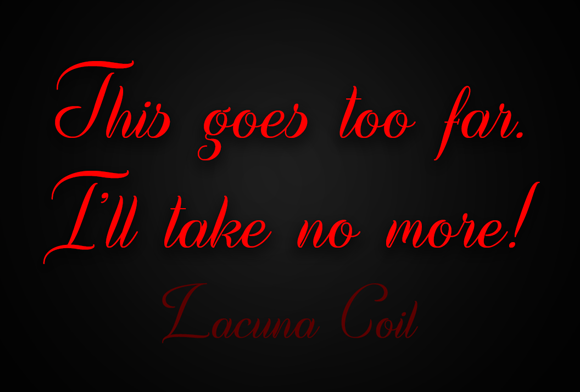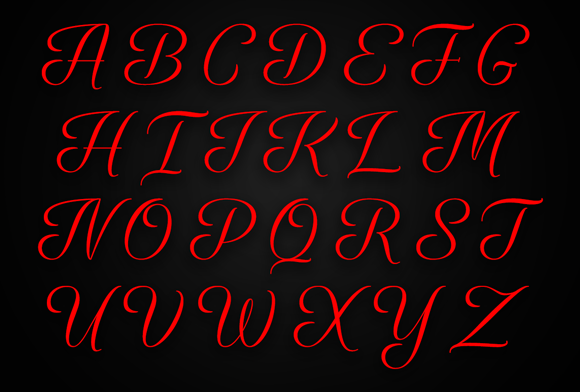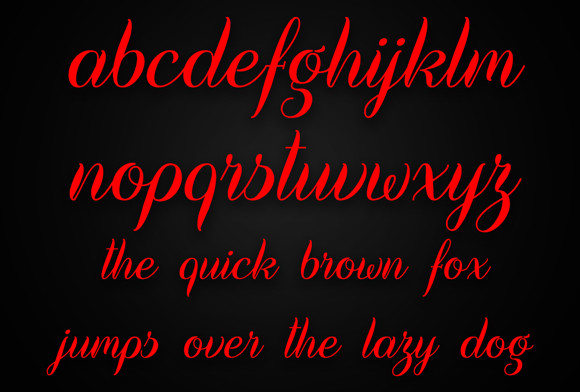
Introduction to Self-Deception Font
Self-Deception is an elegant calligraphy typeface that is perfect for wedding invitations, logos, product labels and so much more.
Self-Deception is an elegant calligraphy typeface that is perfect for wedding invitations, logos, product labels and so much more!